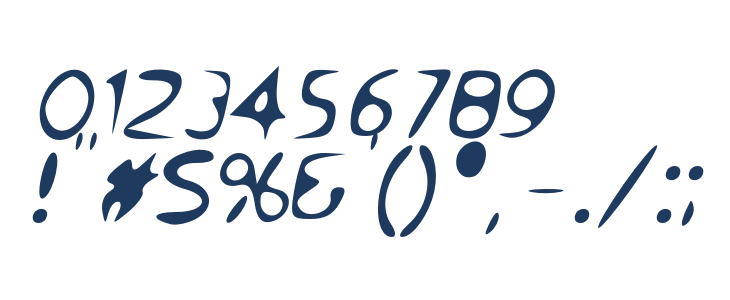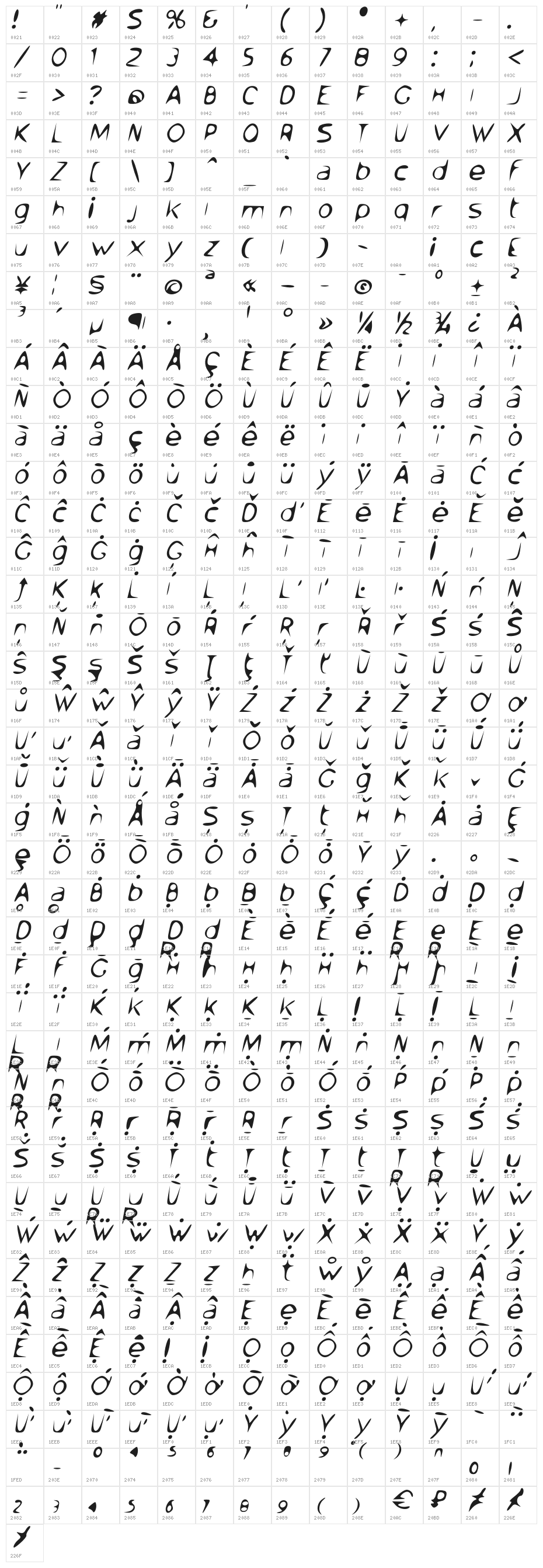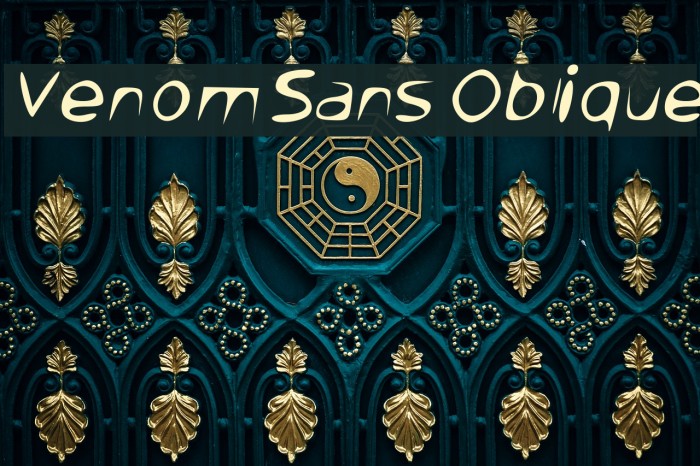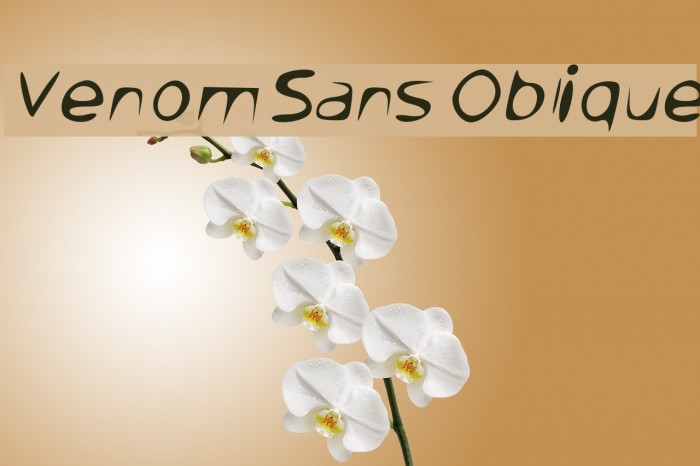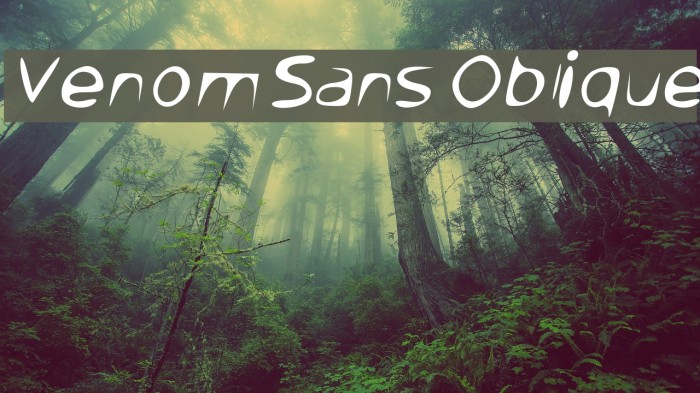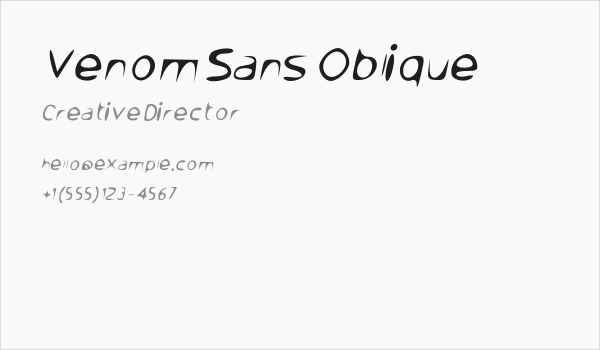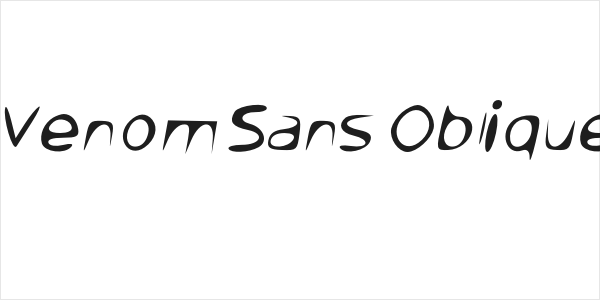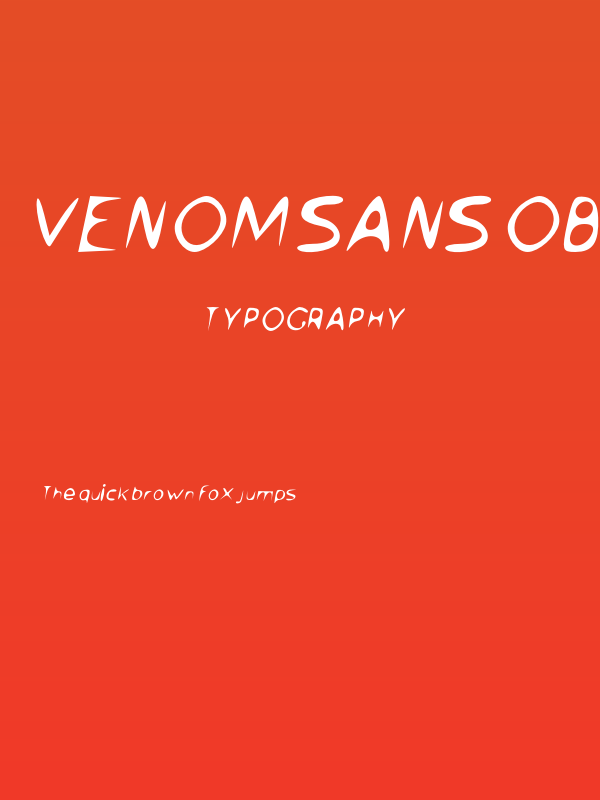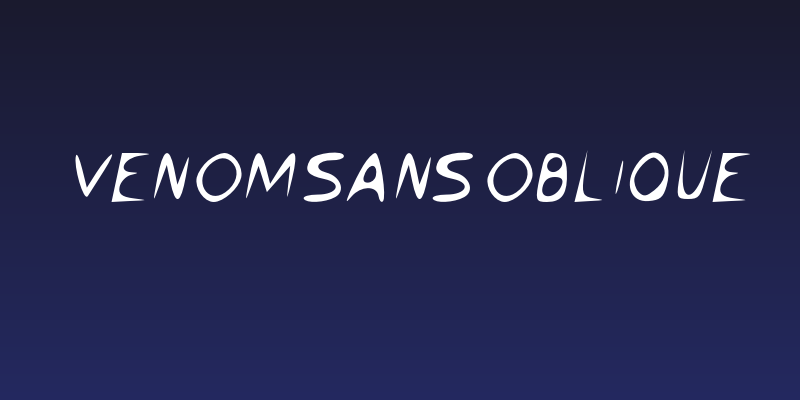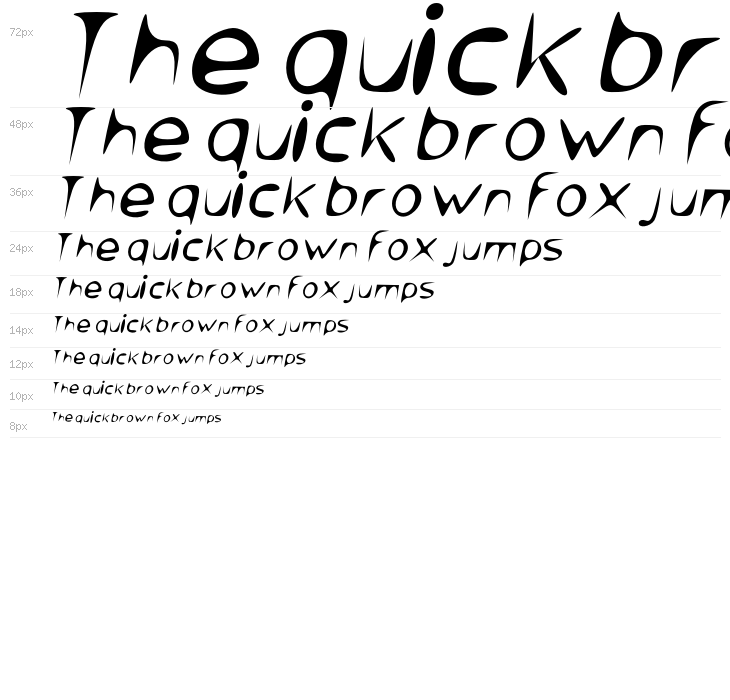
Venom Sans Oblique Font
Venom Sans Oblique Description
This font features a dynamic and edgy style, characterized by sharp, angular strokes and a sense of movement. The letters have a unique, venomous appearance, with pointed edges and a slightly italicized slant, giving it an oblique feel. The uppercase and lowercase letters maintain a consistent design, with a bold presence that commands attention. The numerals and special characters follow the same aesthetic, ensuring a cohesive look across all text. This font is perfect for projects that require a bold, modern, and slightly aggressive touch.